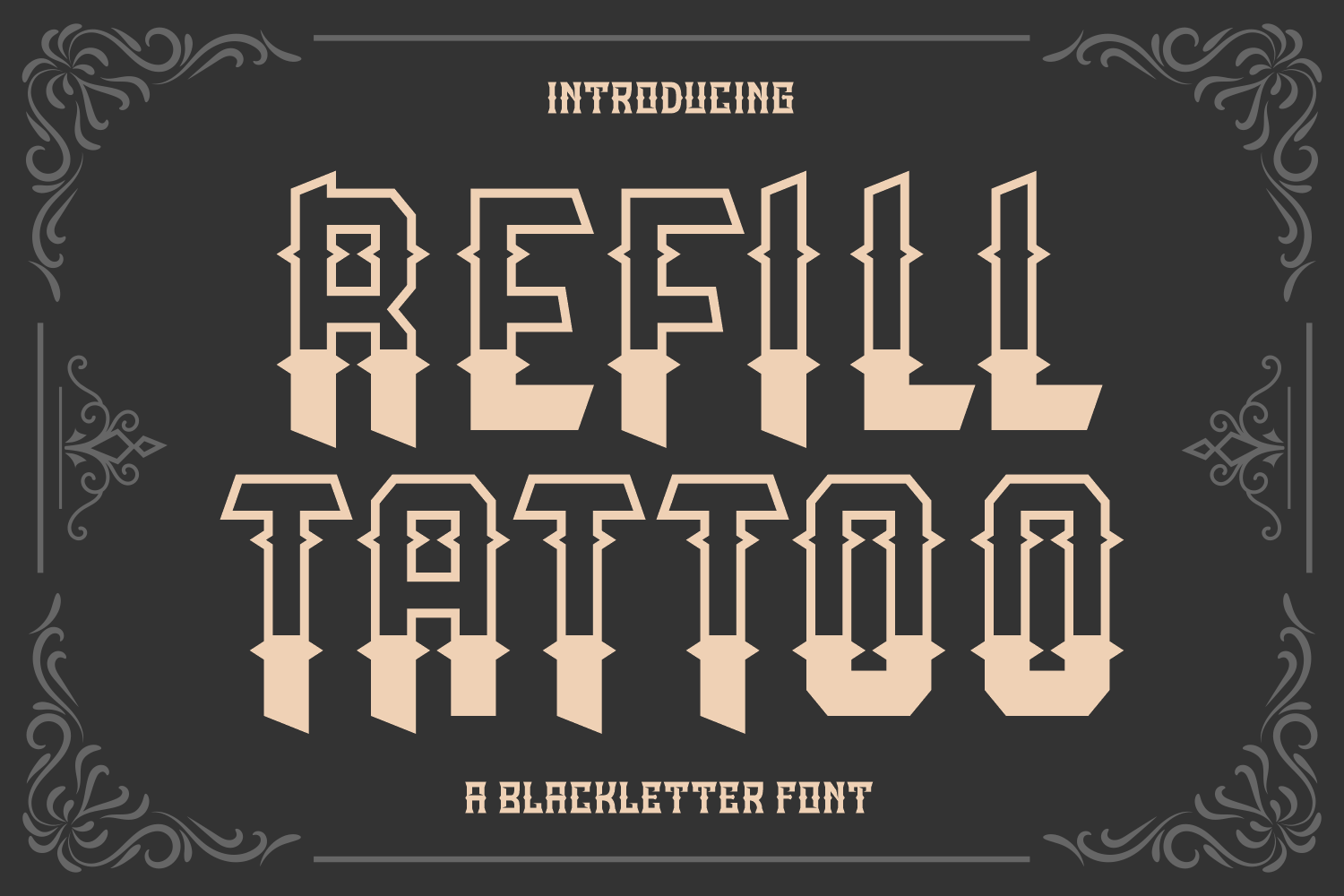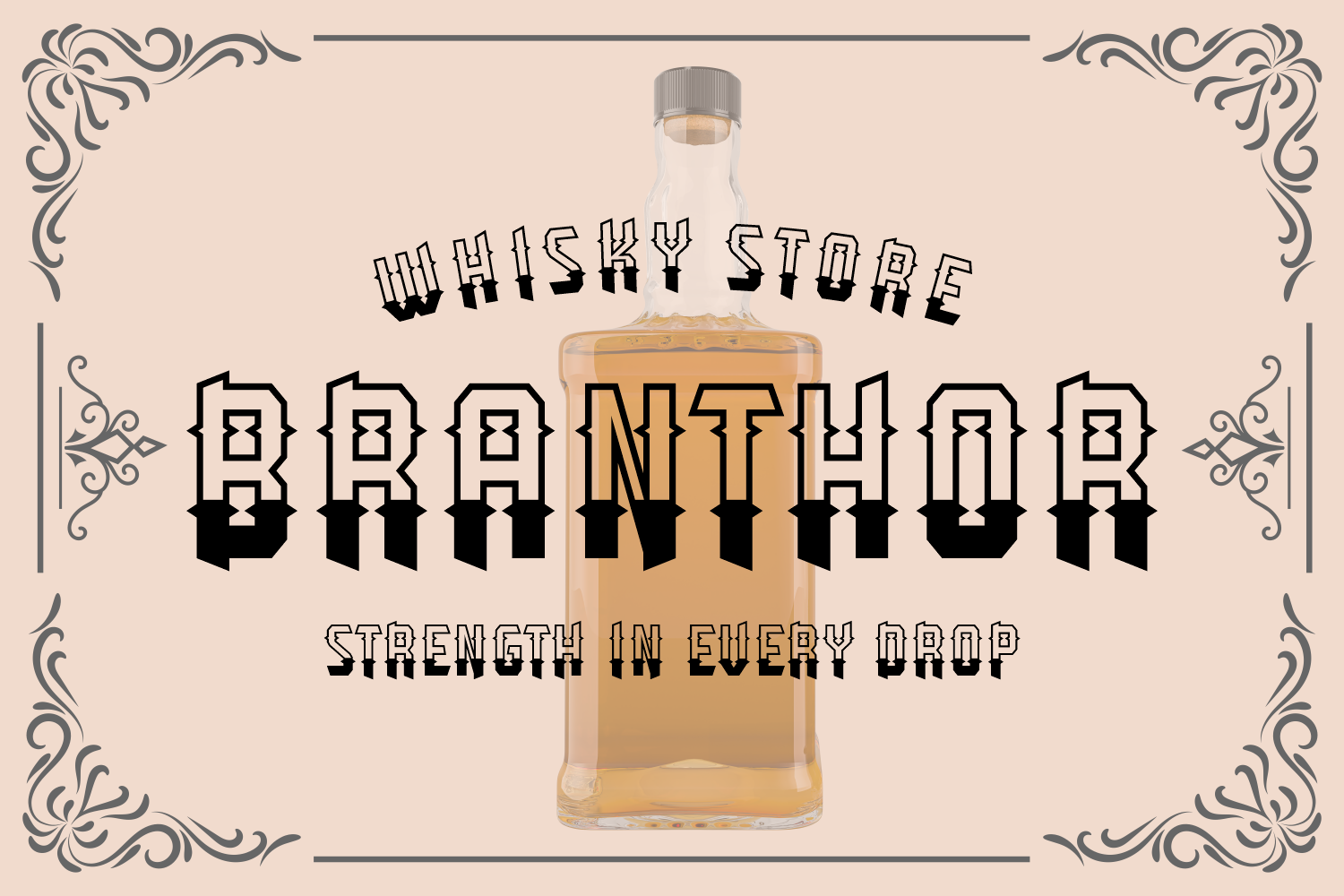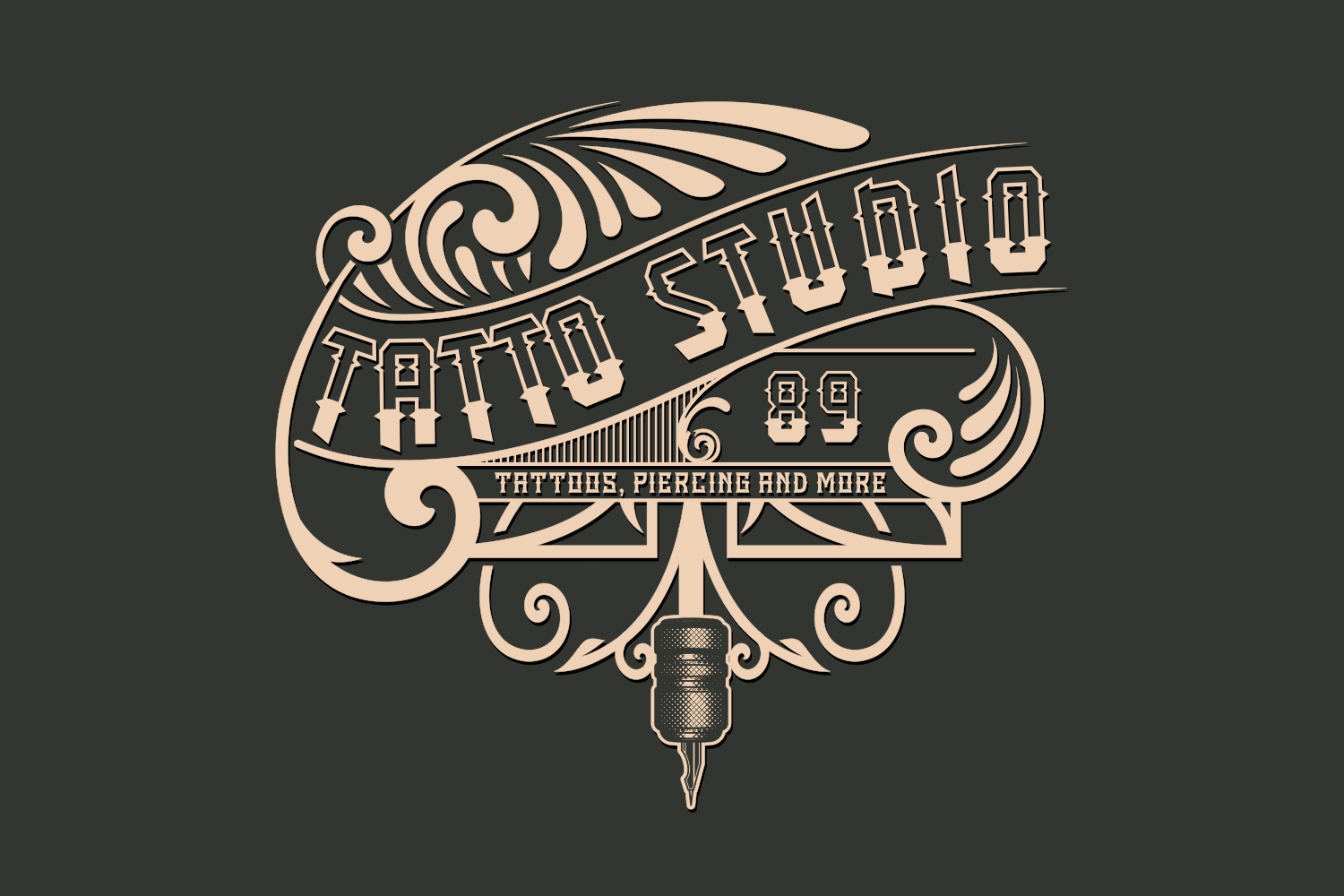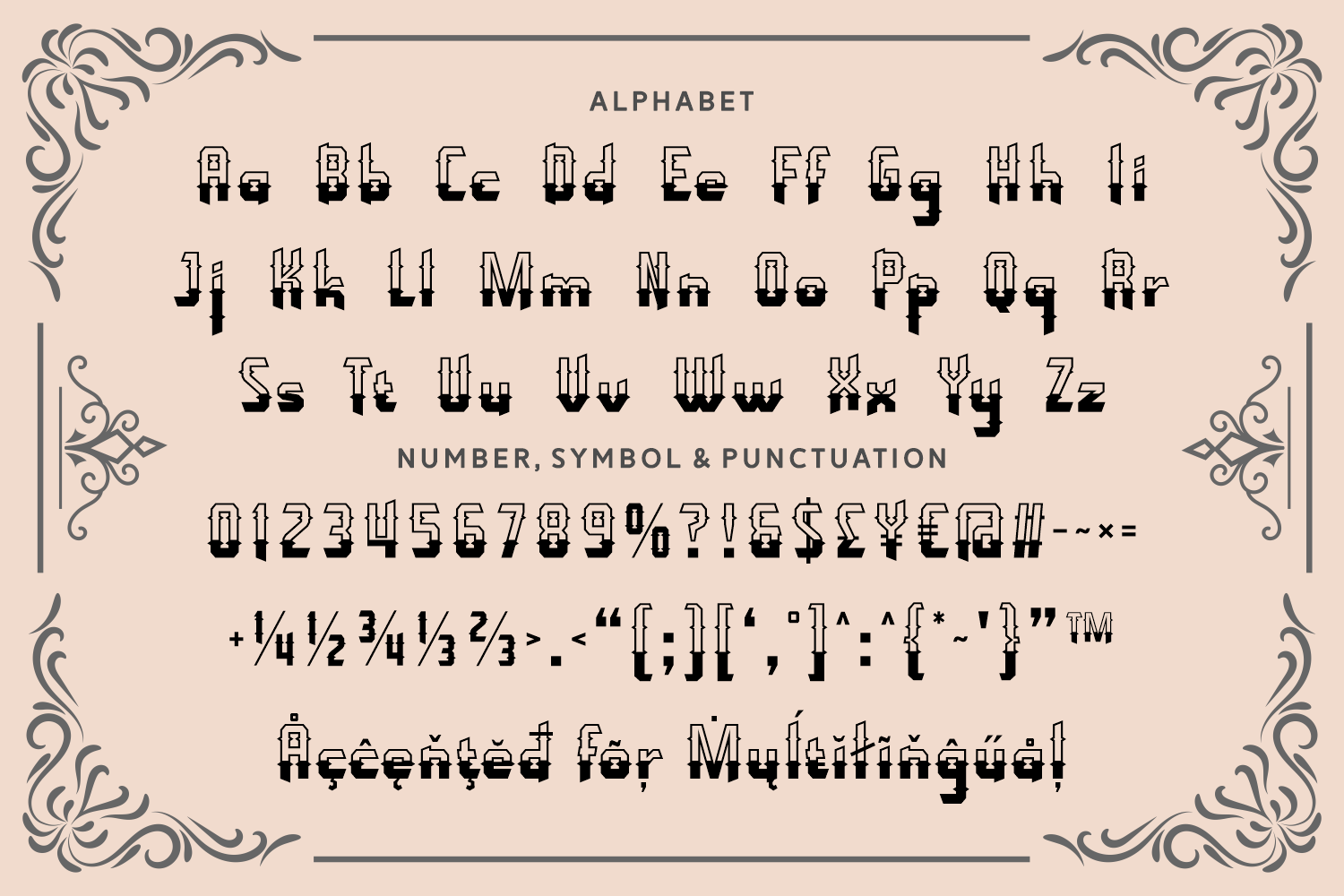
Refill Tattoo is a bold and edgy blackletter font inspired by the world of ink, rebellion, and street culture. Its sharp, geometric forms and solid structure make it a perfect choice for tattoo designs, band logos, apparel branding, and bold headline work.
With its striking personality and hardcore aesthetic, Refill Tattoo delivers unforgettable visual impact that feels raw and fearless. It's the go-to typeface when your design needs to scream attitude.